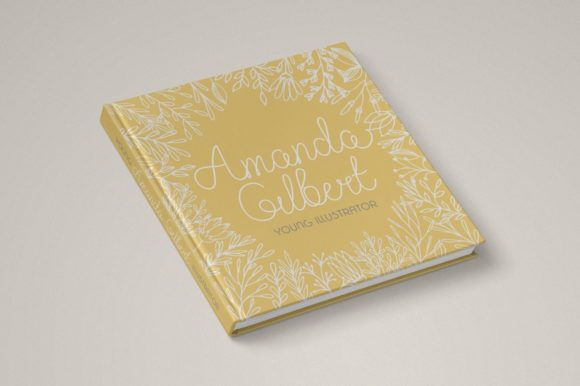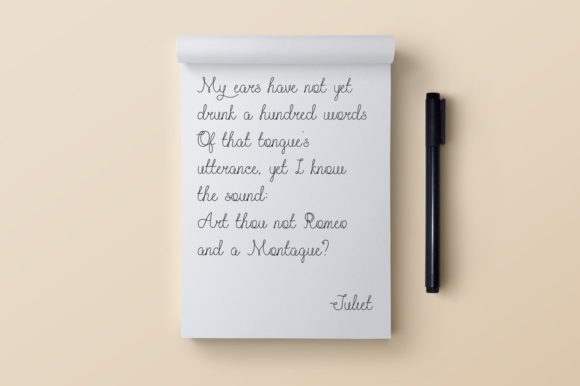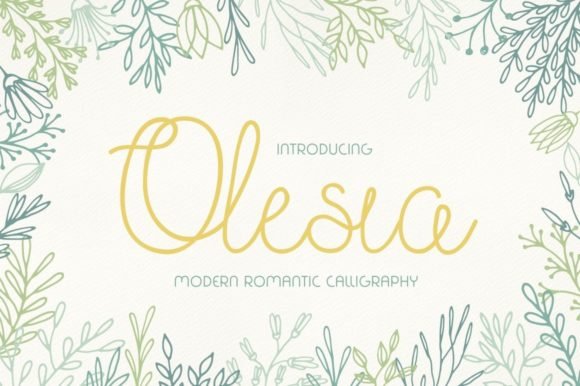
Introduction to Olesia Handwritten Font Font
I present to you my font.
It’s Olesia This refined and romantic font will help you in your design.
Olesia Handwritten Font Font offers exceptional quality and versatility, making it a valuable addition to your design toolkit. Whether you’re creating for personal projects or commercial use, Olesia Handwritten Font Font delivers professional results.